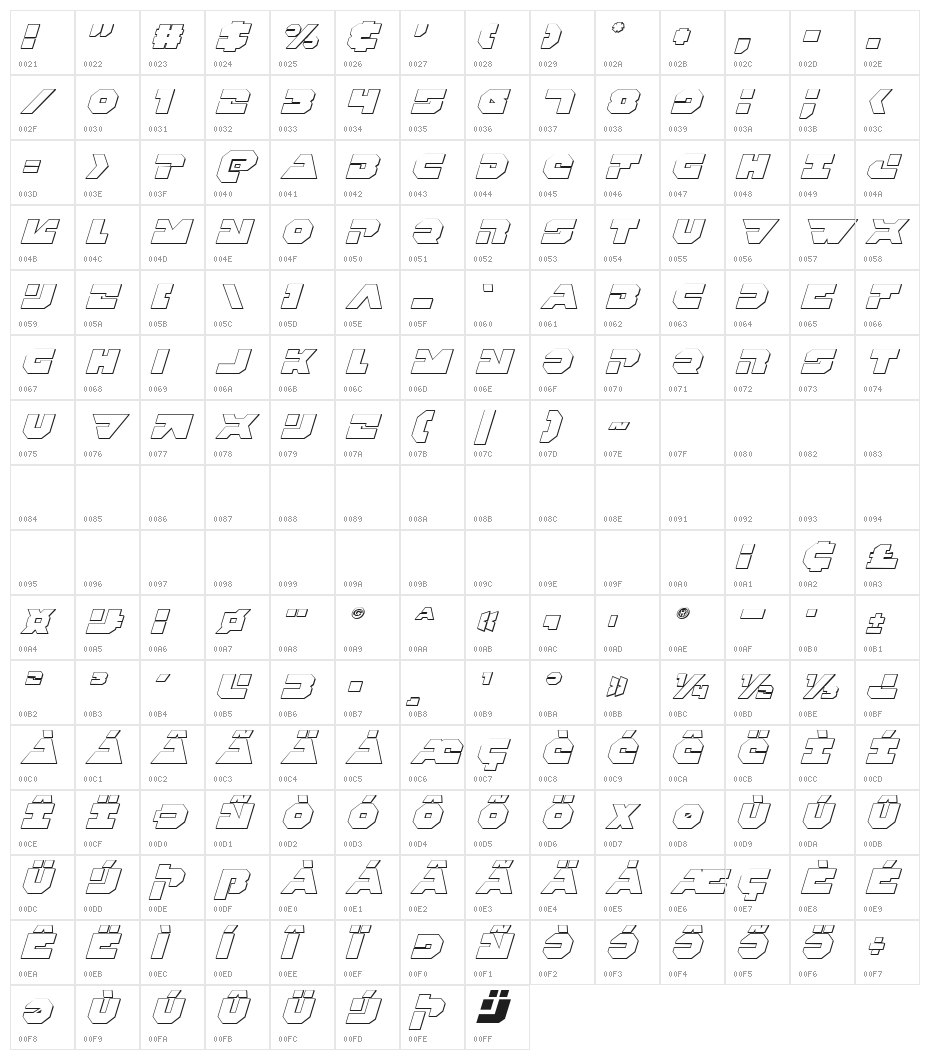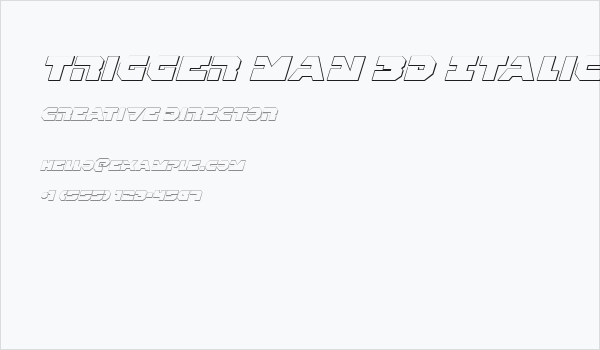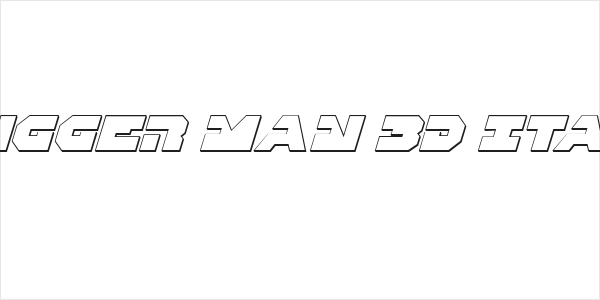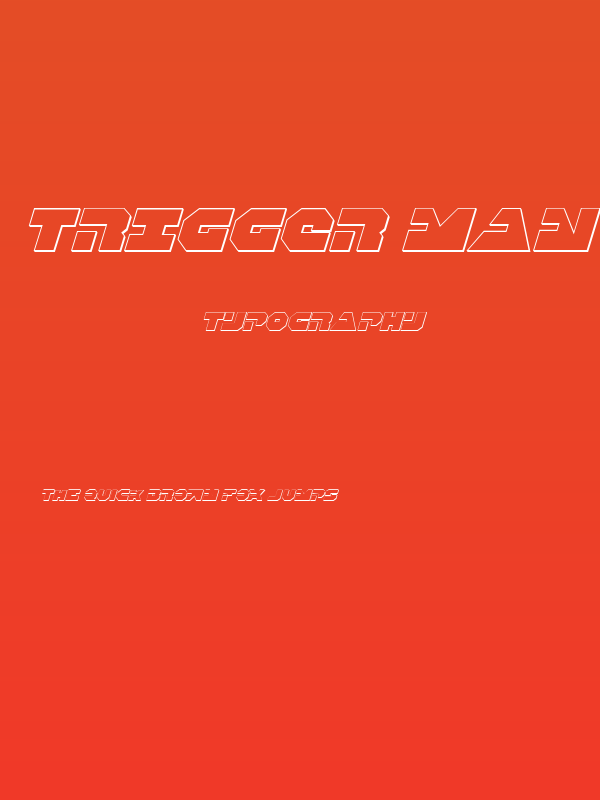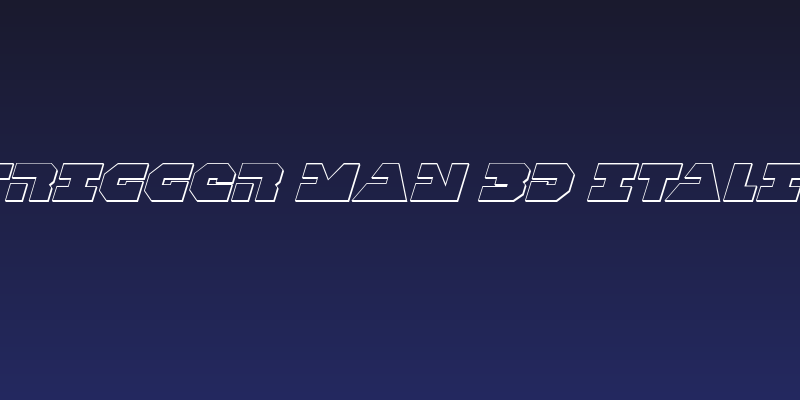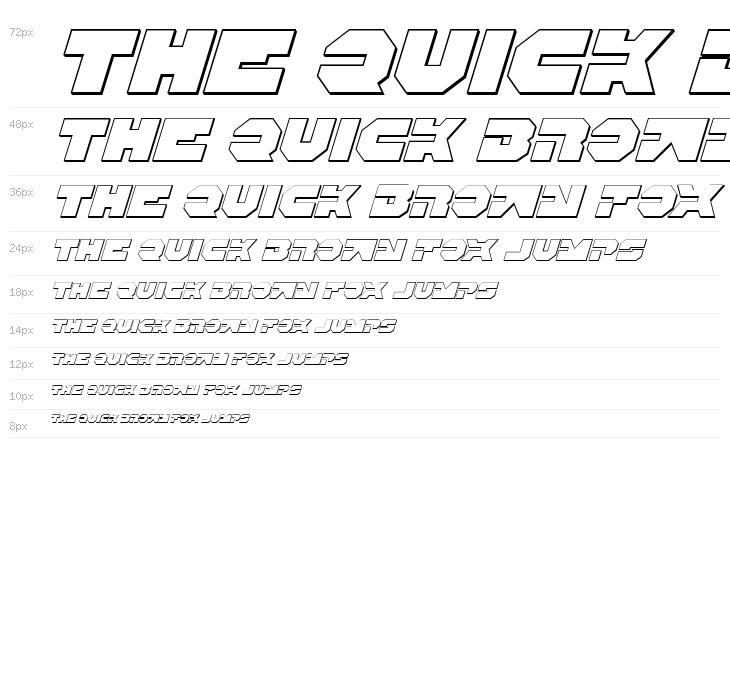
Trigger Man 3D Italic Font
Trigger Man 3D Italic Description
This font features a bold, geometric design with a 3D effect that gives it a dynamic and futuristic appearance. The characters are constructed with sharp angles and straight lines, creating a sense of movement and depth. The italic style enhances the forward-leaning motion, making it ideal for projects that require a modern and edgy look. The uppercase and lowercase letters maintain a consistent style, while the numerals and special characters complement the overall aesthetic. The font's unique structure makes it stand out, perfect for attention-grabbing headlines or logos.
| Proposed Projects | Ideal for sci-fi themed designs, video game titles, tech company logos, and modern posters. |